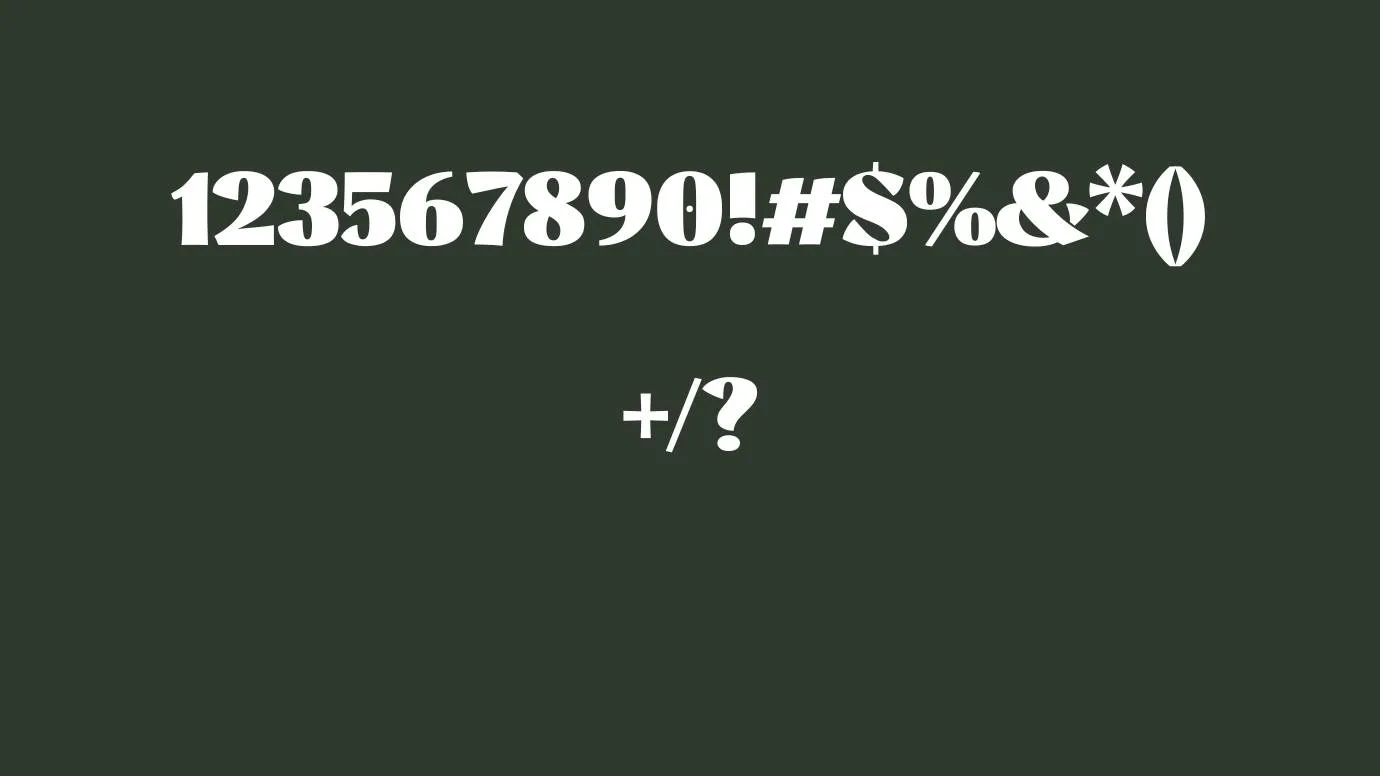
Hyper Font is created by Anita Jürgeleit. The typeface is a nice text style it has unique characters that can play an important role in creating a fabulous design for the project.
The style is well-known because of its unique characteristics and gorgeous design. This design is similar to the planet of the apes font. This style can also be imported into a CSS file to create an elegant design for the project.
What Are the Qualities of Hyper Font?
Advantages of Using Hyper Font
The significance of this typography is acknowledged by all designers. This style is widely used by developers for a variety of tasks, including creating headers, movie titles, and many other things.
The typeface is ideal for headings and advertising tasks. This fantastic typeface is a great option if you want a great font to design your business card as well as headers and titles for your projects.
The font has different symbols and capital letters that make you able to create beautiful designs such as book covers, mug designs, cushion designs, and much more.
This design can be used to create a movie promotion banner, textile designing webinars, posters, billboards, and numerous other tasks. Get Hyper Font Free
What are the alternatives to Hyper Font?
It is a fancy typeface utilized to design the titles of movies and books, textile designing webinars, posters, billboards, and numerous other tasks.
This typeface is comparable to Boing Font. You can use this style as an alternative.